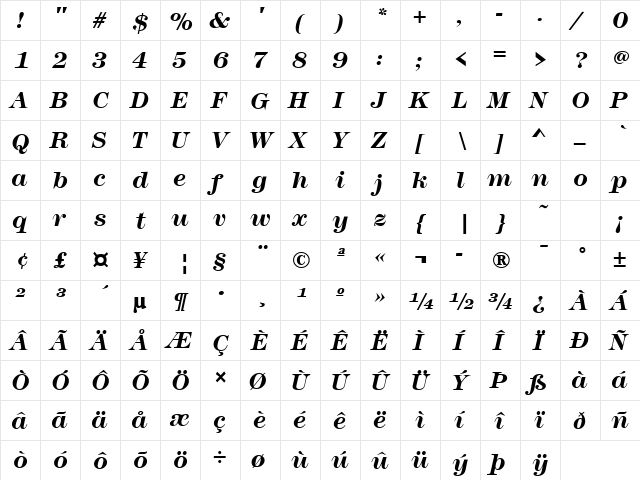
Modern327 Bold Italic Font Preview
Modern327 Bold Italic
Design Context for Modern327 Typeface
Modern327 takes a measured approach to typography — its balanced proportions and neutral character make it a reliable workhorse for both digital and print work. Its italic angle brings a sense of urgency and motion to the letterforms. Its bold stroke weight gives it real presence on the page.